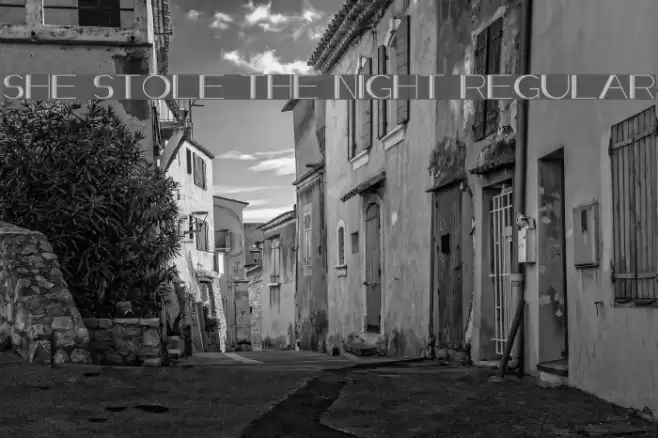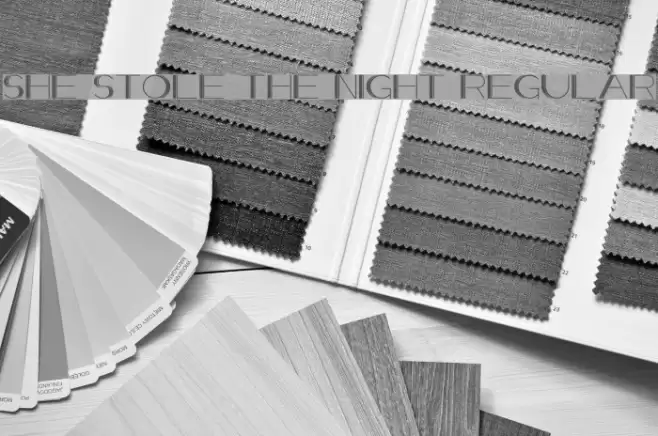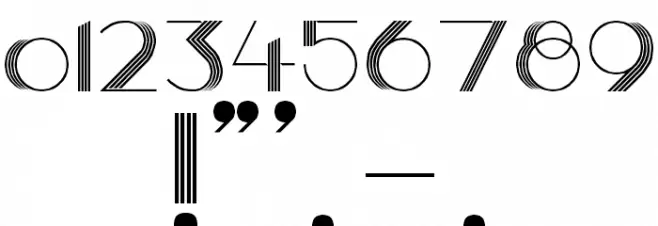
She Stole the Night Regular Font
She Stole the Night Regular Description
This font features a unique and striking design with a modern, geometric aesthetic. The characters are composed of multiple parallel lines, creating a sense of movement and depth. The uppercase and lowercase letters maintain a consistent style, with clean lines and sharp angles. The numerals and special characters follow the same design principles, ensuring a cohesive look across all elements. This font's distinct appearance makes it ideal for projects that require a bold and contemporary feel.
A modern, geometric font with parallel line detailing from Retro fonts.
- Proposed Projects: Ideal for branding, posters, album covers, and fashion-related projects.